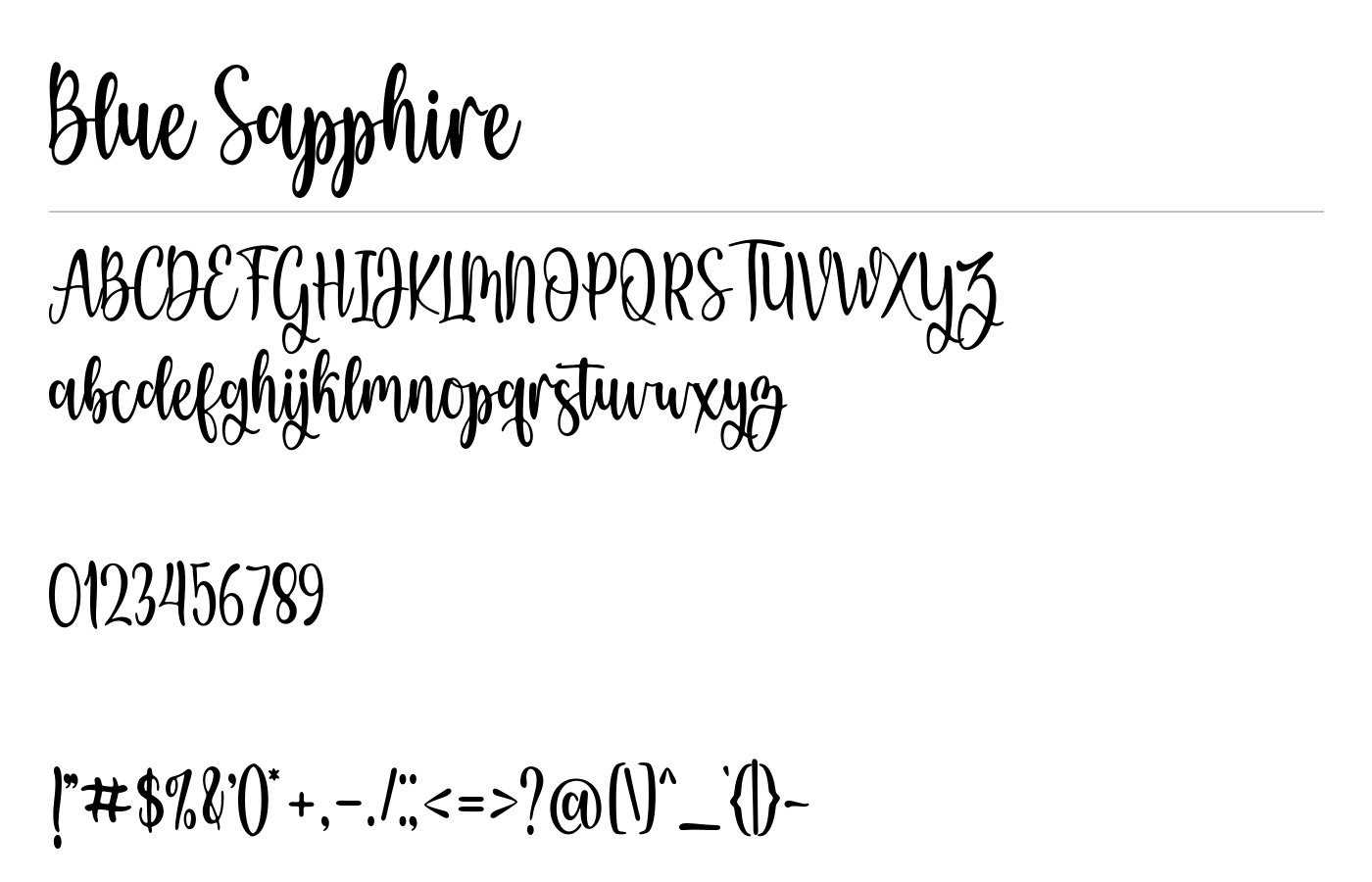
Blue Sapphire is a playful and elegant handwritten script font with a casual yet refined feel. Its tall, slender letterforms with smooth curves and moderate stroke contrast make it perfect for stylish branding, invitations, and creative projects that need a friendly, personal touch. This font works well in headlines and decorative text where a warm, approachable vibe is desired.
Blue Sapphire Font
About Blue Sapphire Font
| Designer | Muhajir |